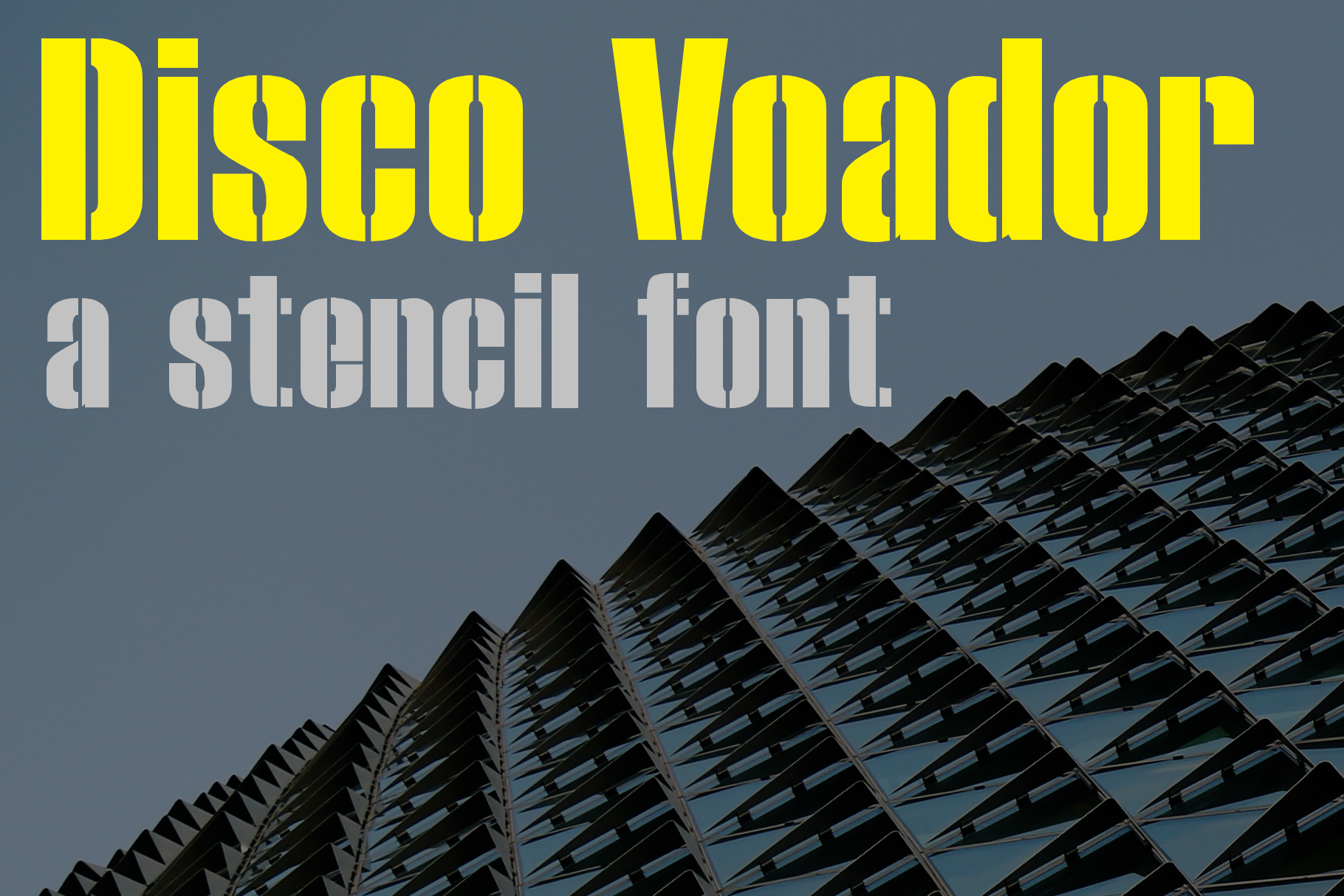
Disco Voador Stencil Font
Disco Voador is a stencil font. Very compact it makes a statment when used. Disco Voador means flying saucer in portuguese.
- Regular and Italic.